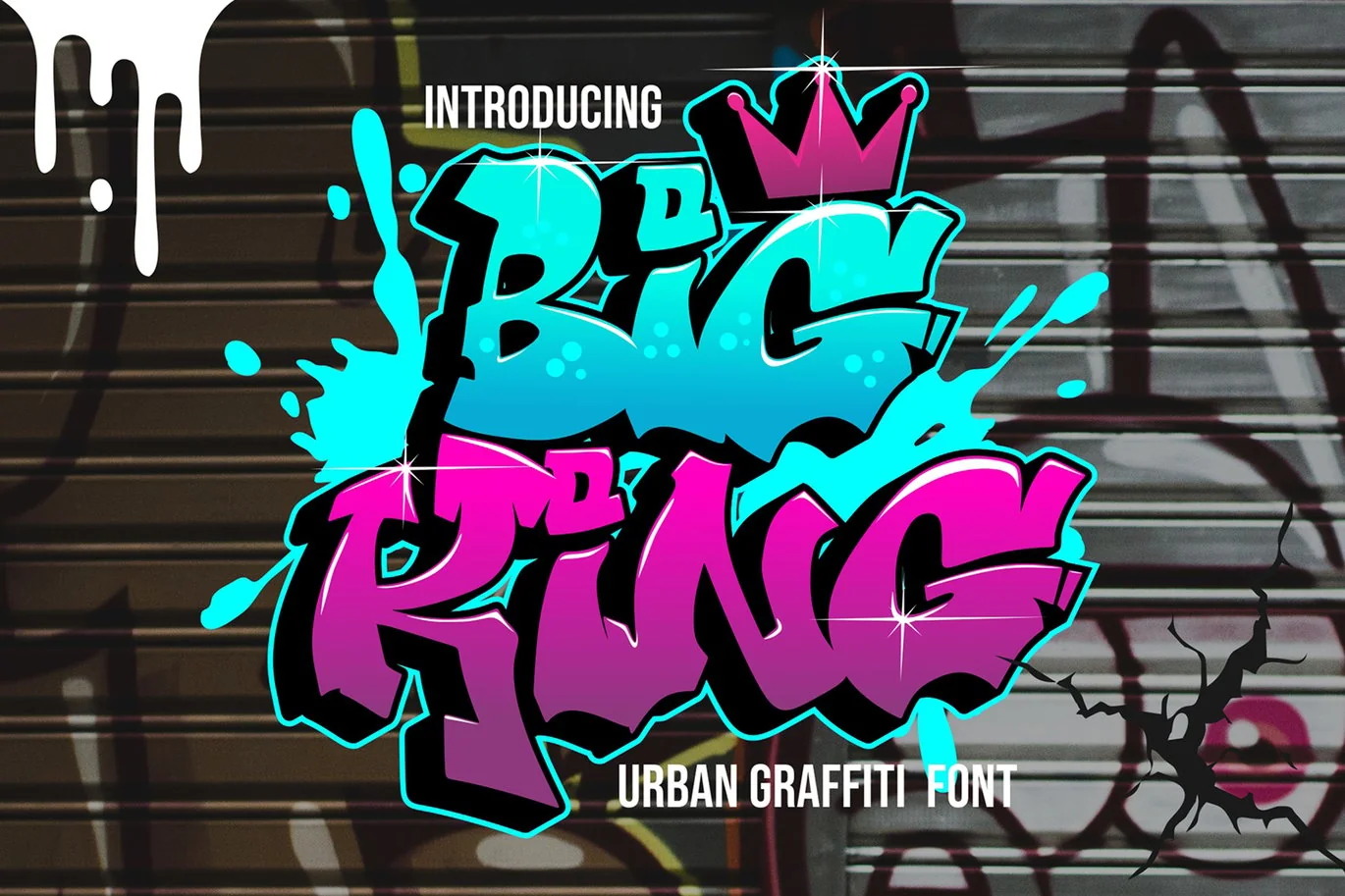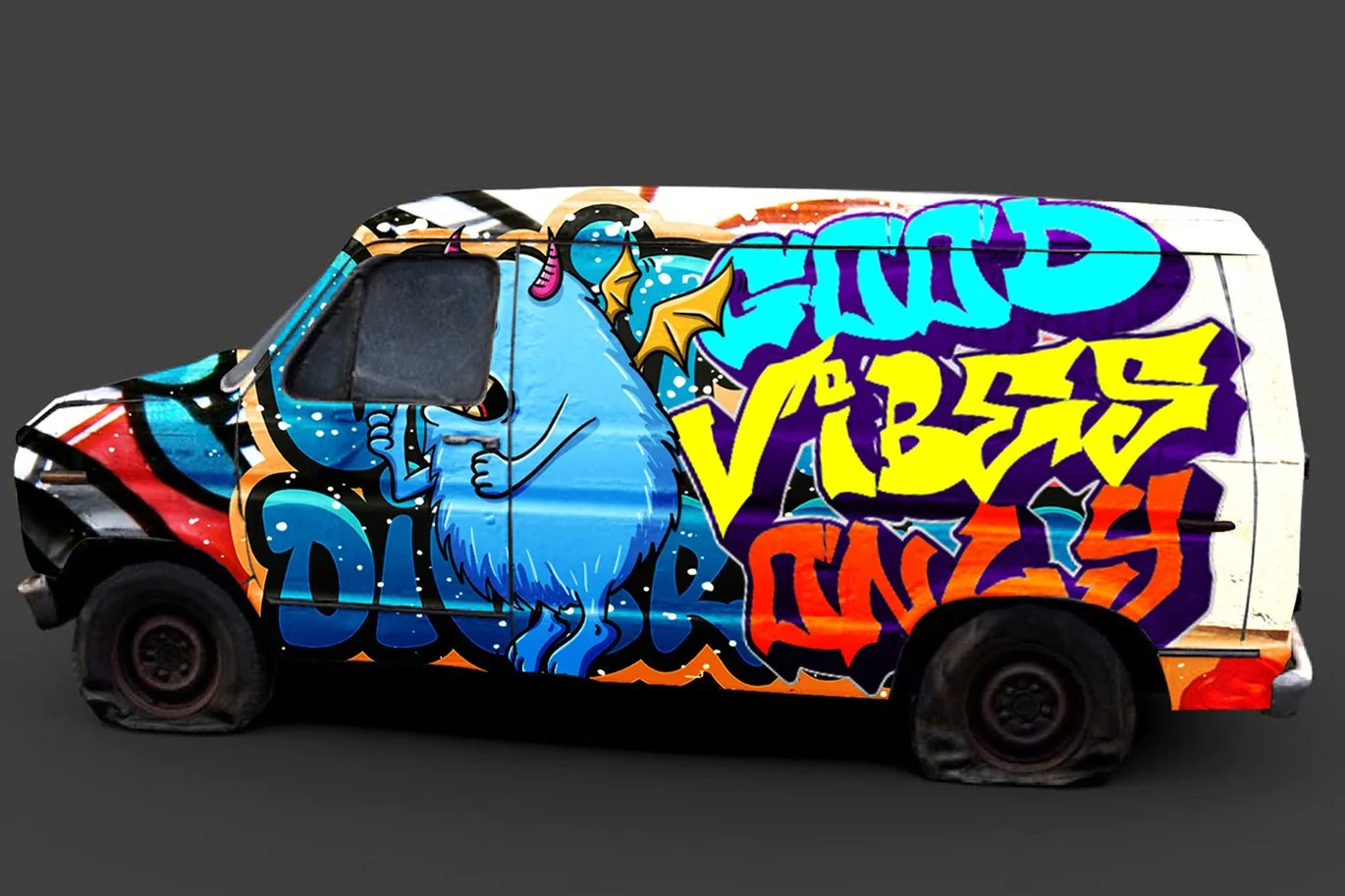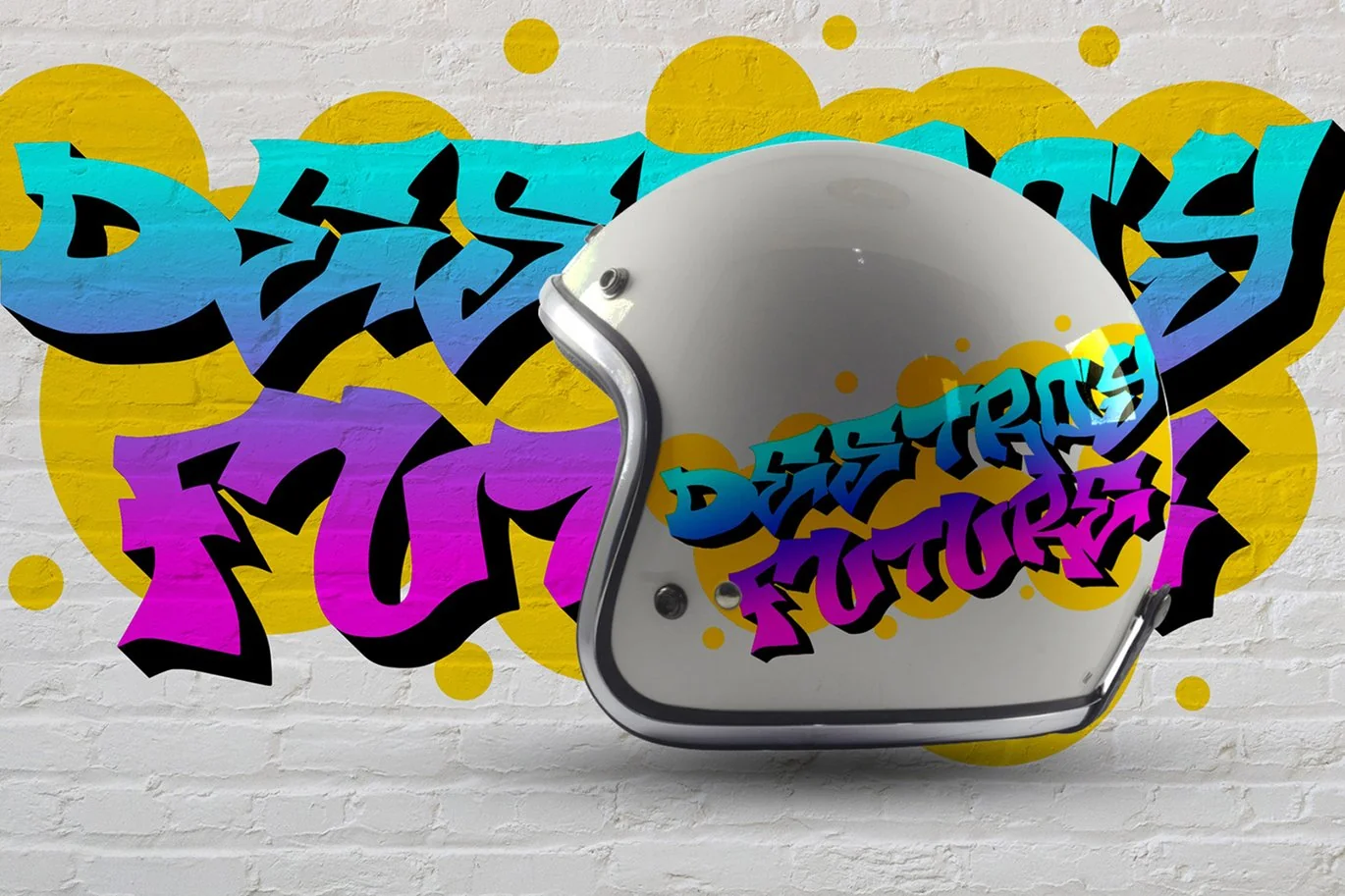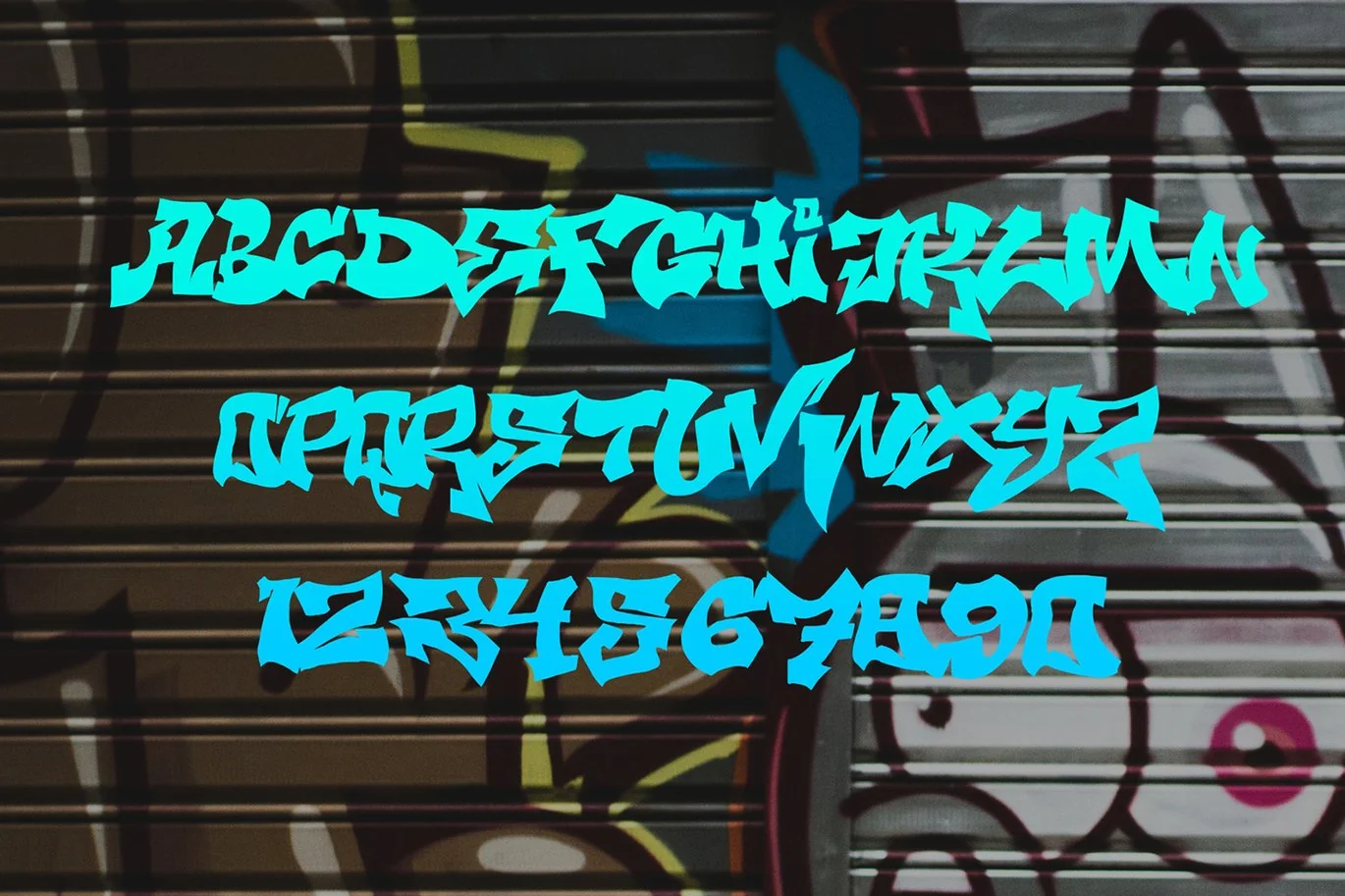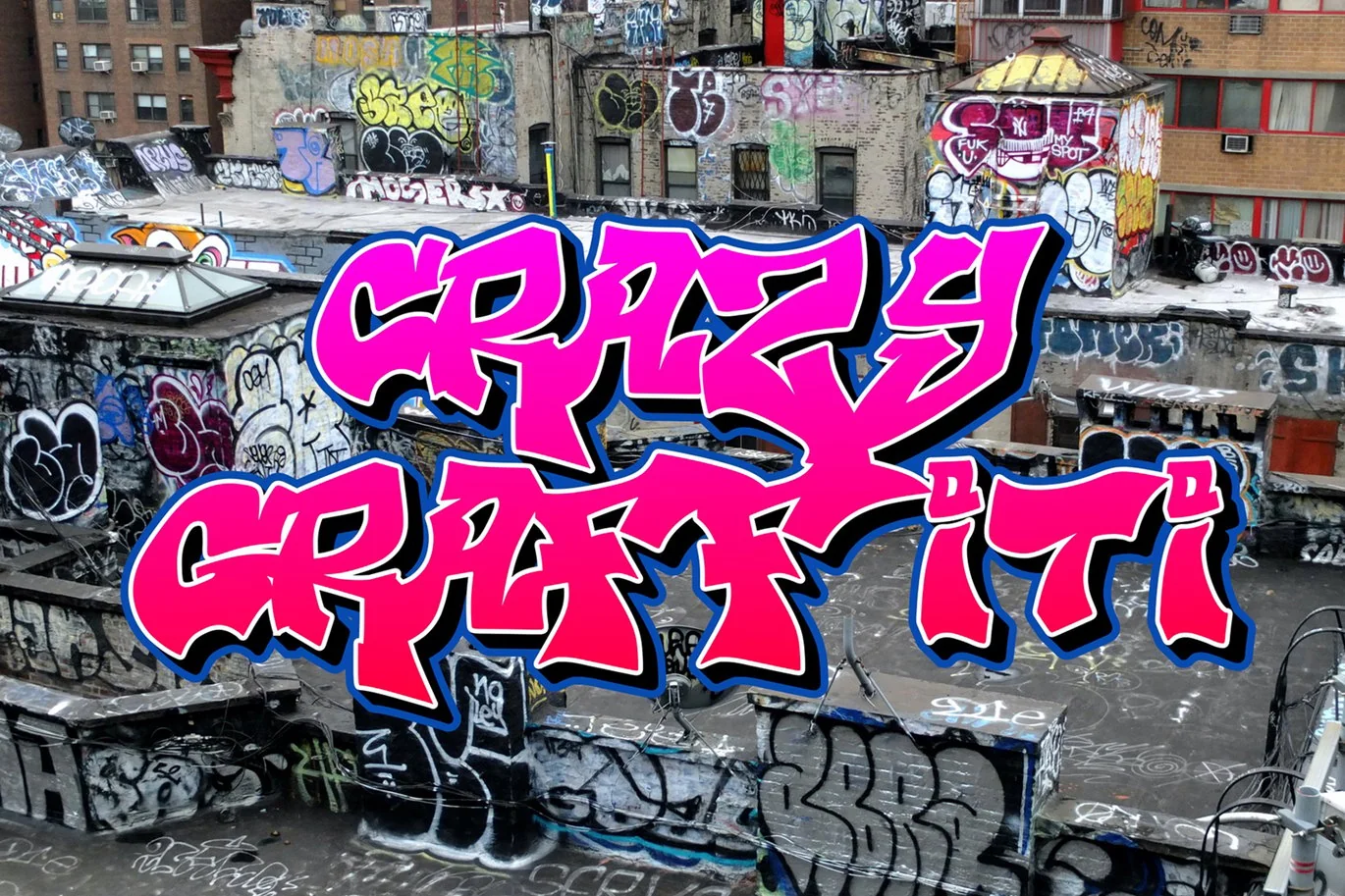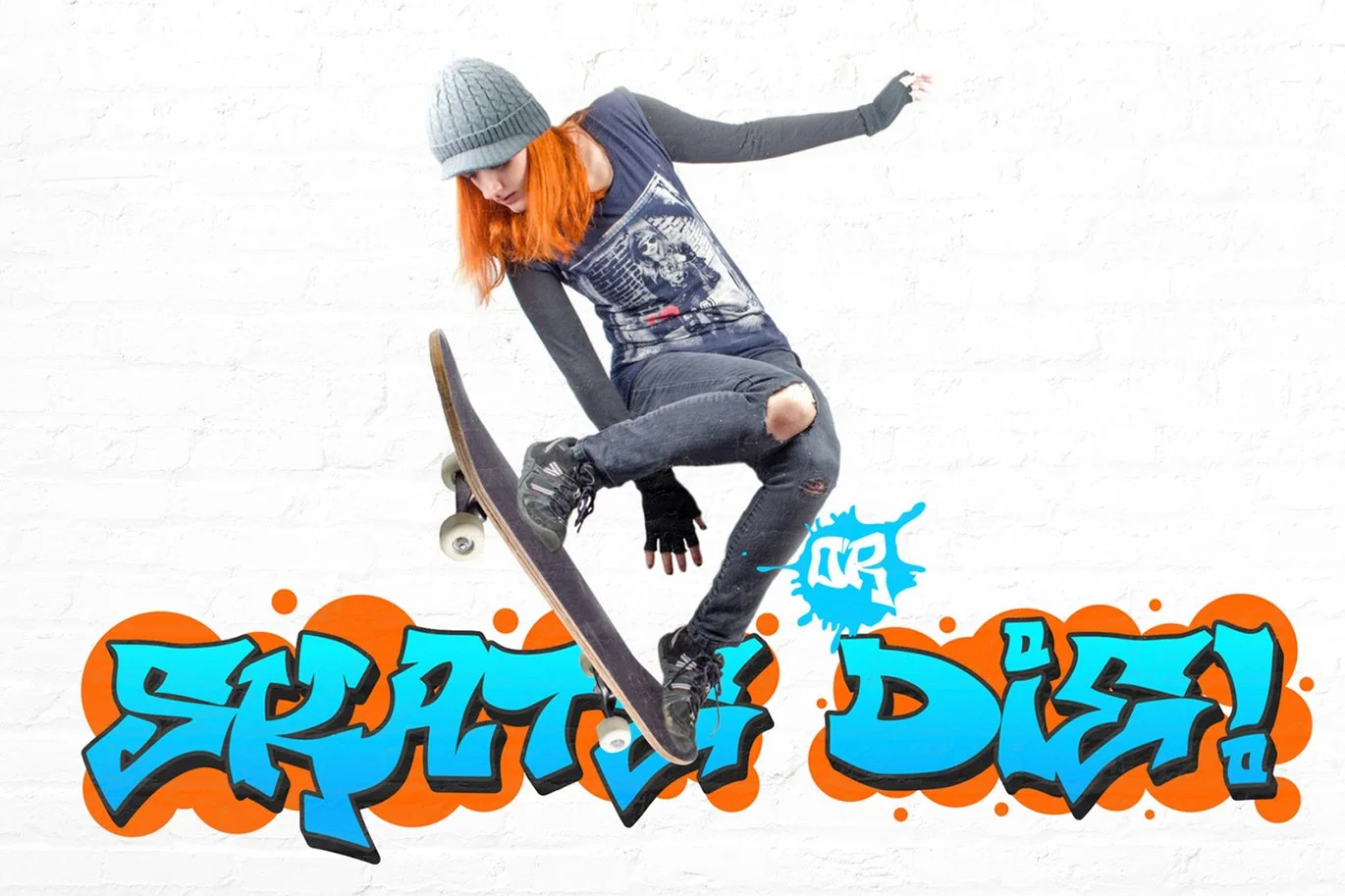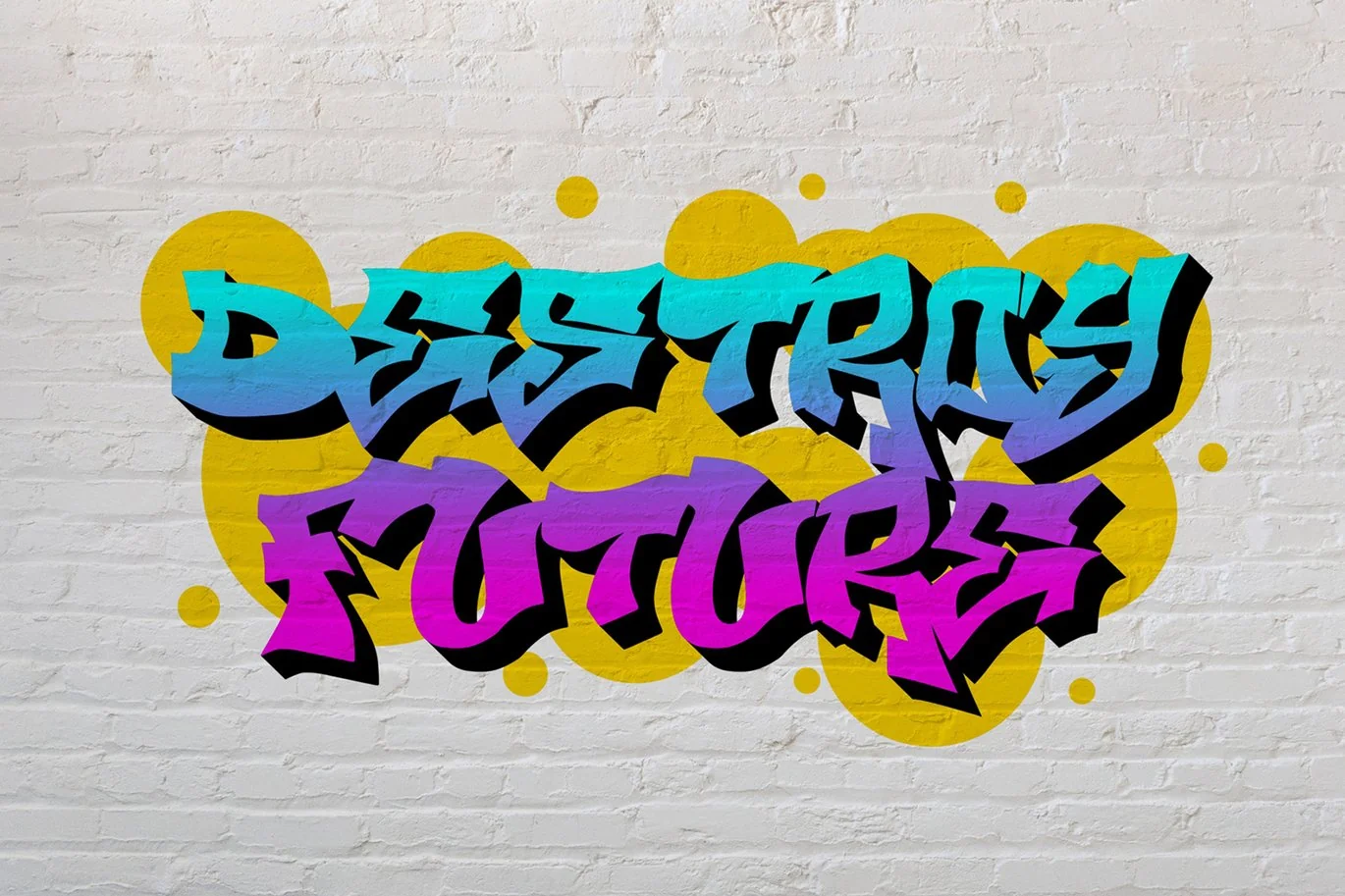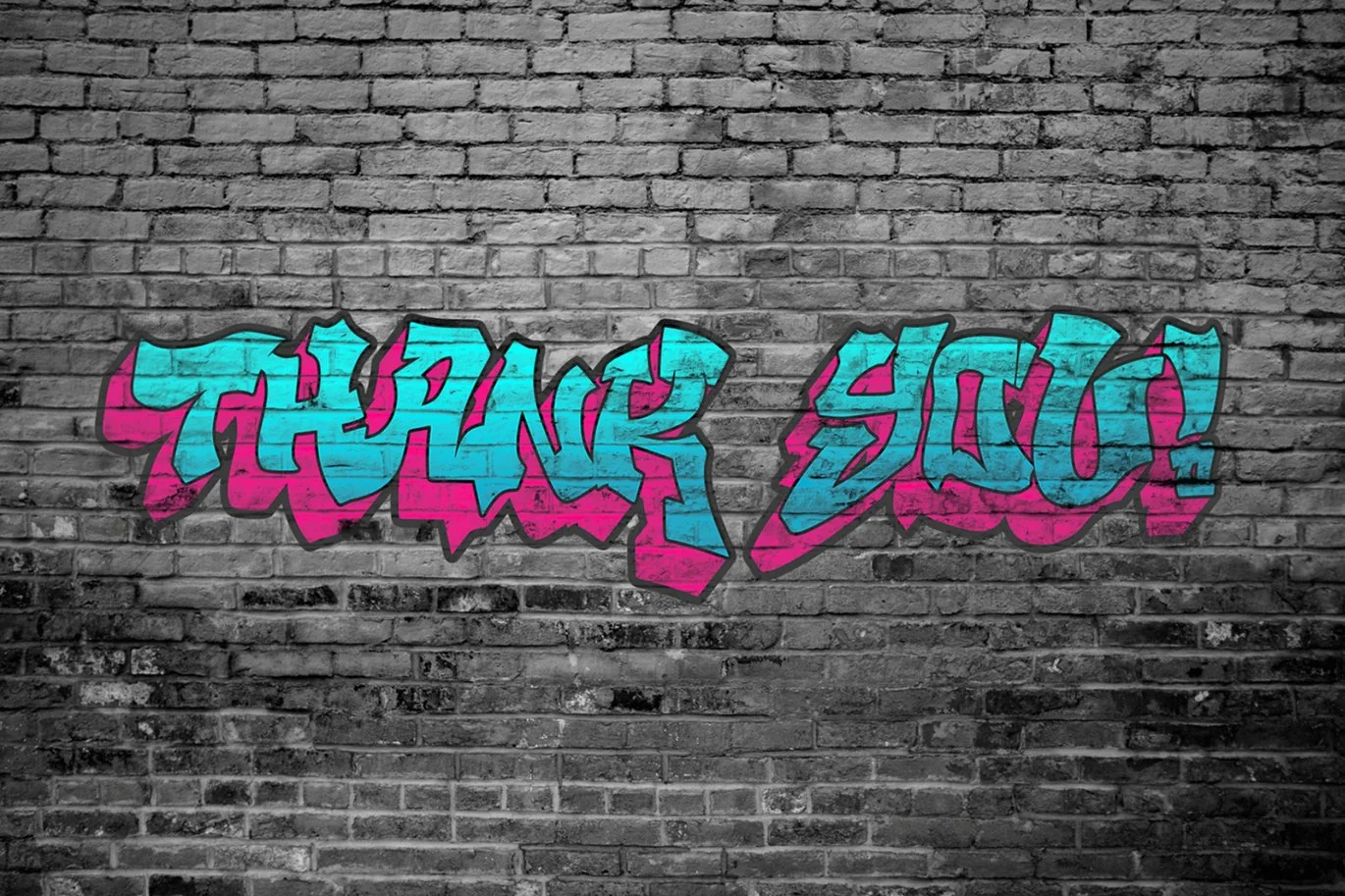
Big King – Urban Graffiti Font
Big King is a spectacular Display font with a Fatty and Thick graffiti style for your design to look awesome. It will elevate a wide range of design projects to the highest level, be it branding, headings, wedding designs, invitations, signatures, logotypes, wall art illustrations, apparel, labels, and much more!